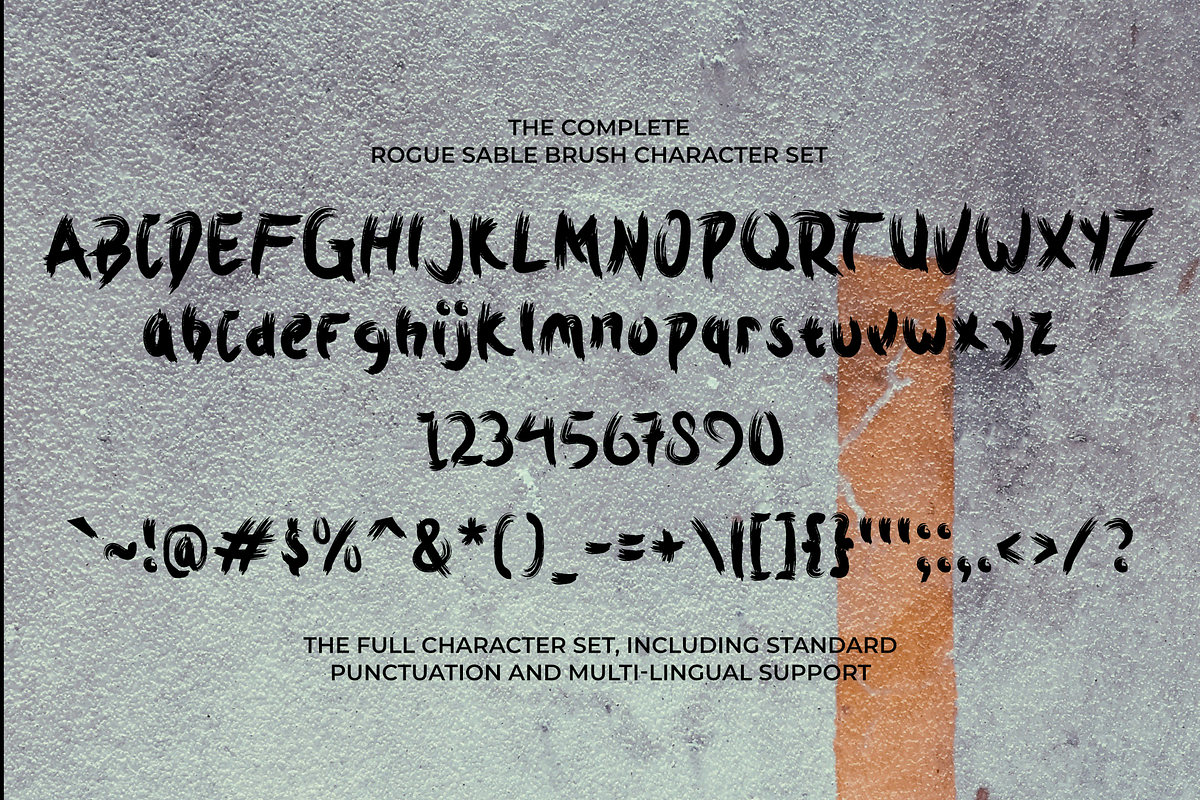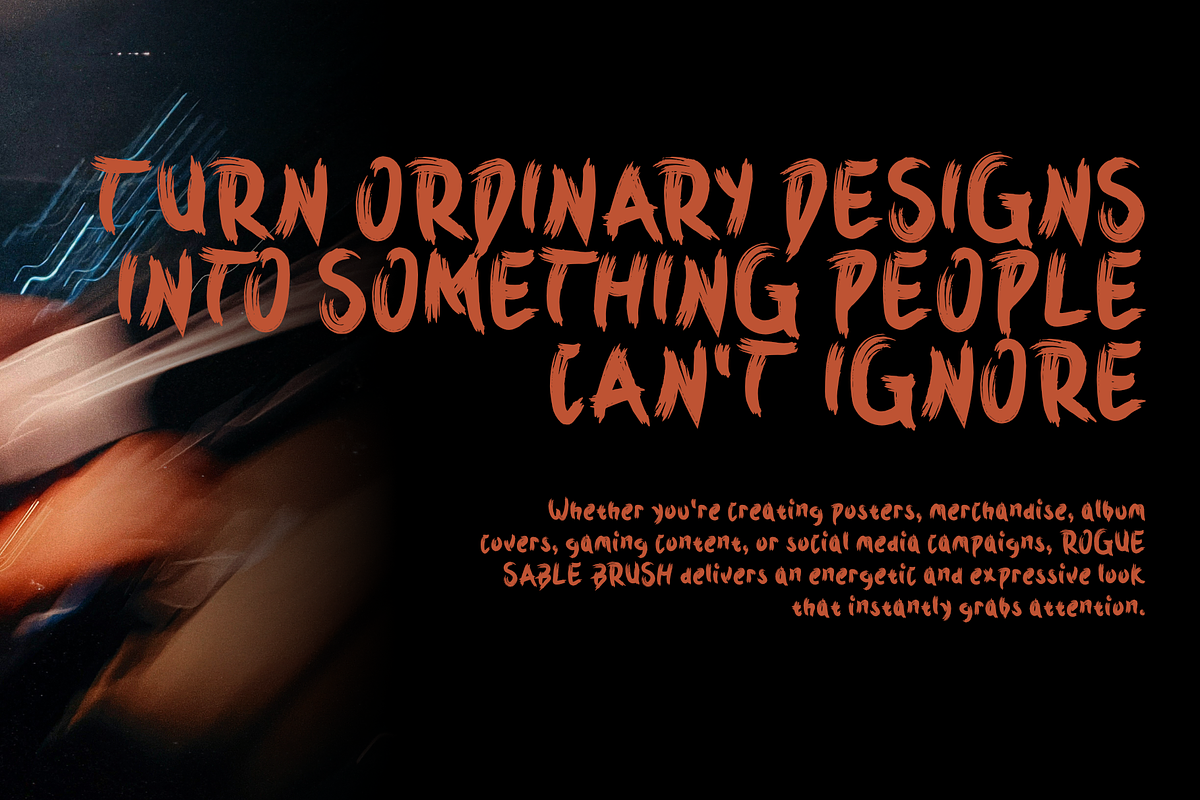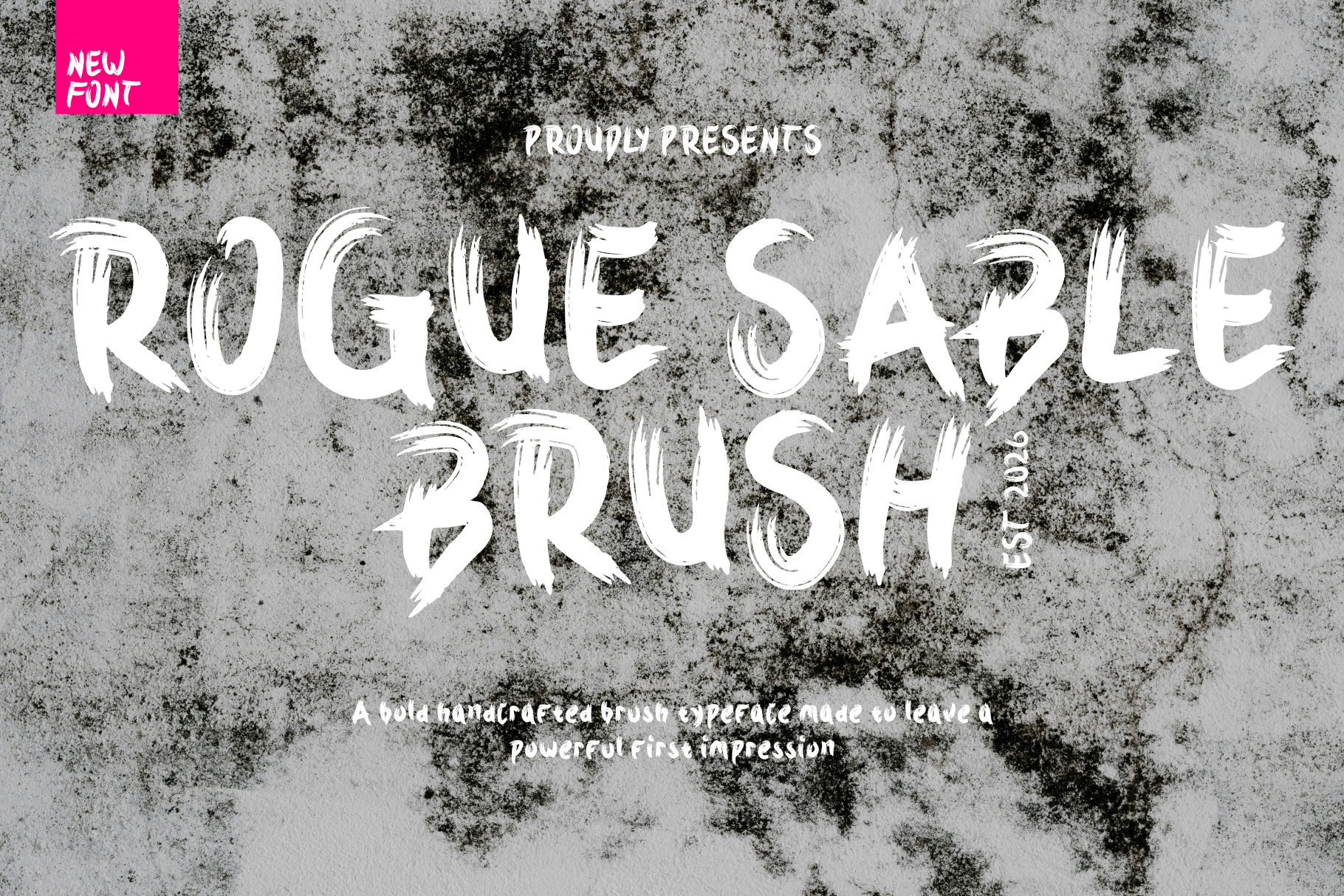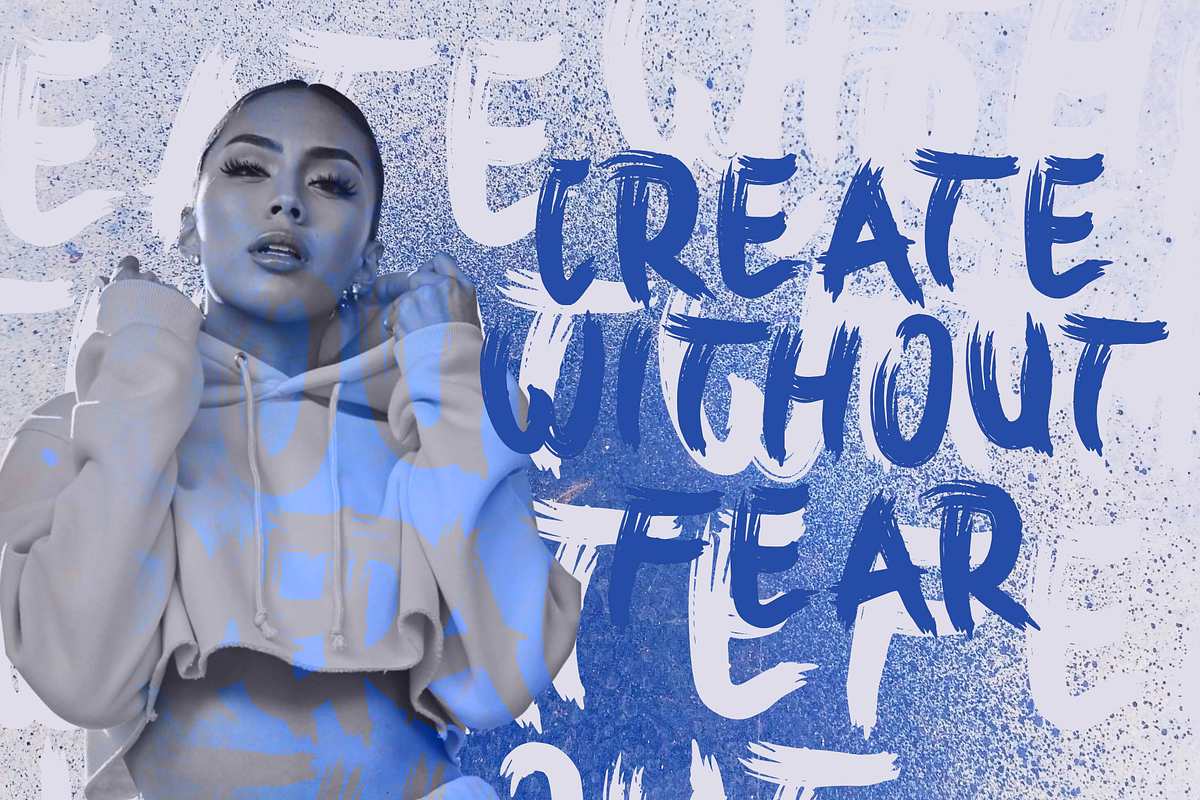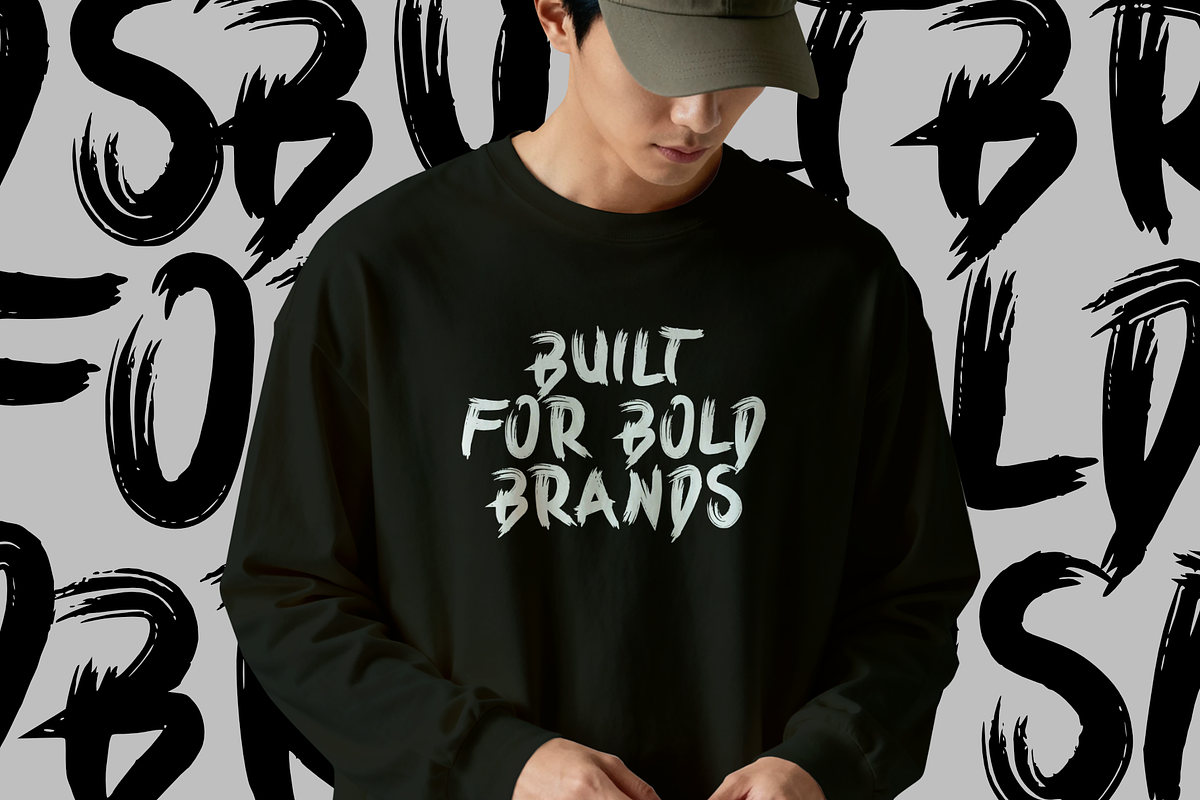
Rogue Sable Bold Brush Font
Rogue Sable Brush is a bold handcrafted brush typeface designed to create a strong and unforgettable visual impact. Featuring expressive strokes, rough edges, and dynamic brush textures, this font brings an energetic, rebellious, and authentic character to any design. Its hand-painted appearance makes it perfect for posters, branding, album covers, apparel, social media graphics, packaging, and creative projects that demand attention. Rogue Sable Brush delivers a raw artistic feel while maintaining excellent readability, making it ideal for both headlines and standout display typography.